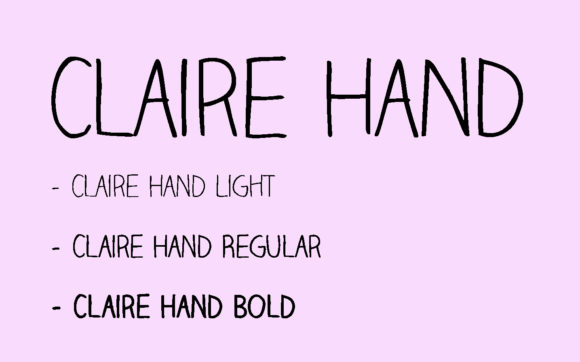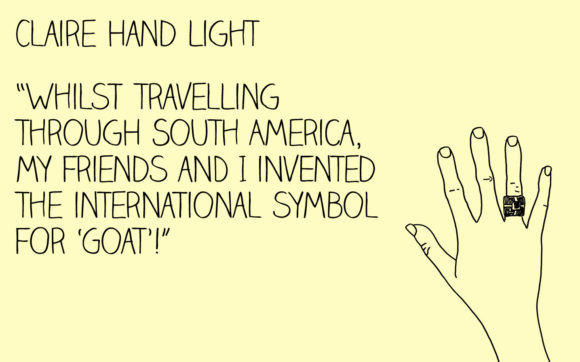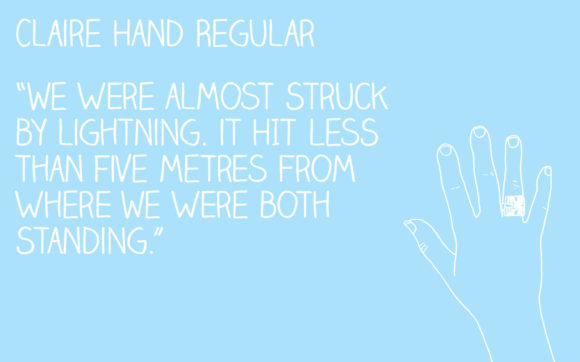
Claire Hand Font
About Claire Hand Font
Claire Hand is a beautiful and light script font that will easily take any design project to the next level. It comes in three weights as well as a web version.